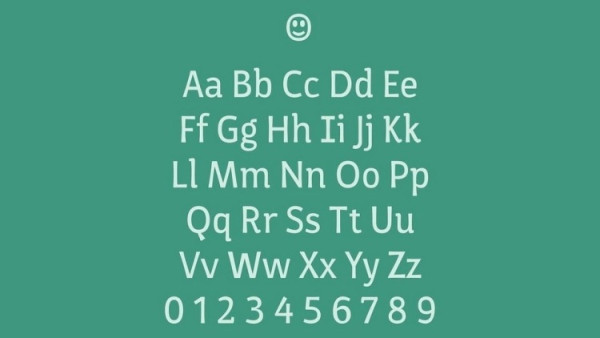
Jade Font
Jade Font is an experimental typeface for wayfinding, born from experience and the search for an accessible, supportive tool for therapists and children within the autism spectrum with developed language and neurotypicals with learning problems.